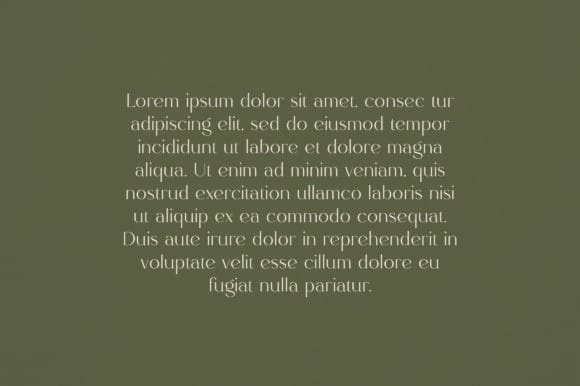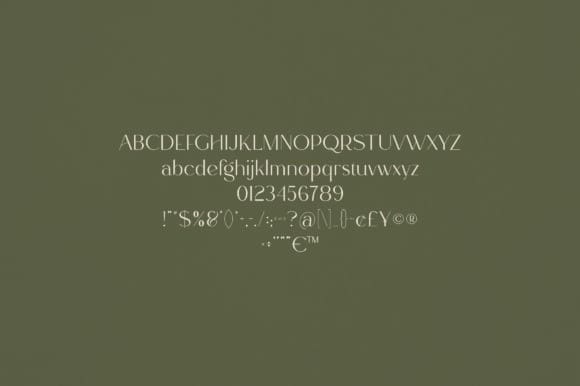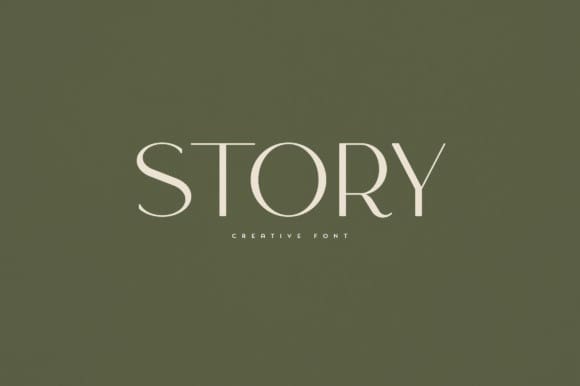
Story Font
Story Font is an elegant and versatile font that will make your typography truly unique! It will enchant every logo, branding, headline, or plain text!